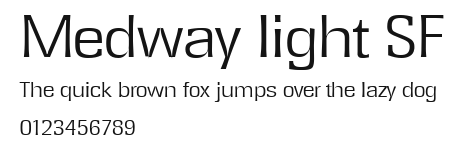
• Font Name: Medway light SF
• Full Font Name: Medway light SF
About Medway light SF.ttf
Medway light SF.ttf is a modern, elegant sans-serif font designed for ultimate readability and visual harmony. Perfect for branding, headlines, web design, and print materials.